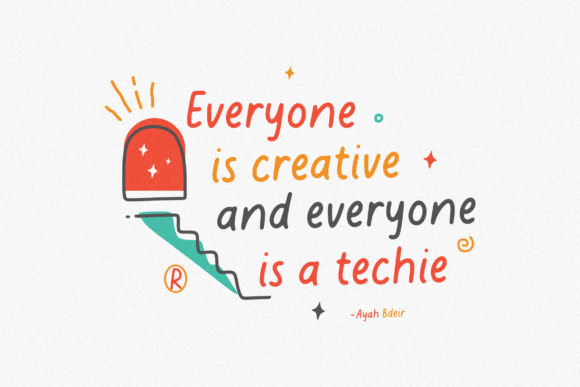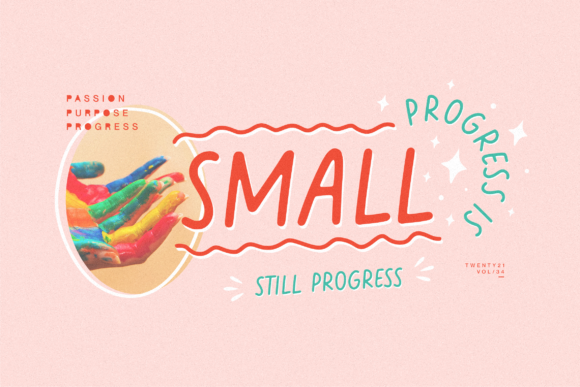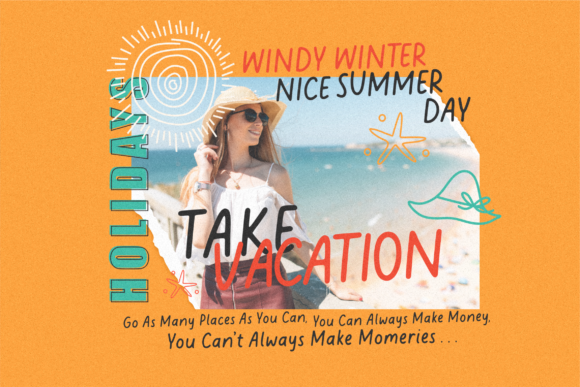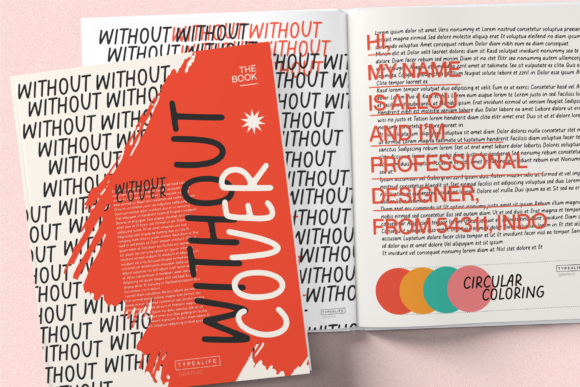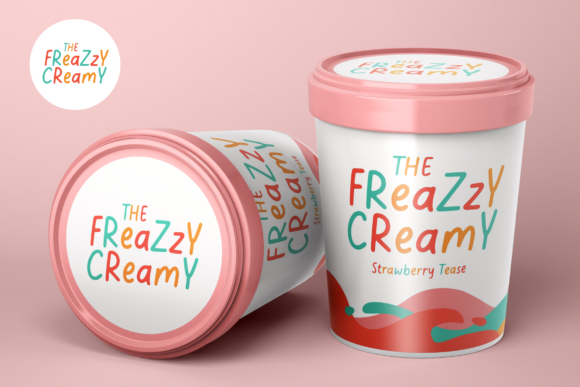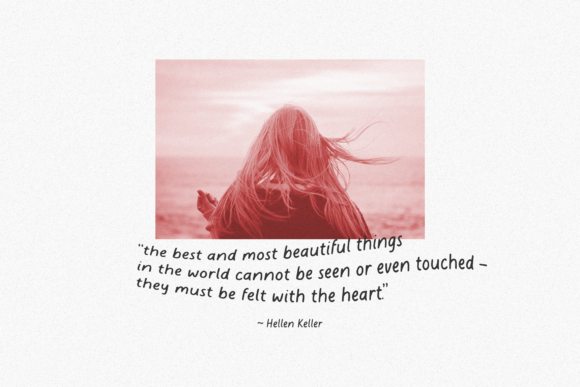
Introduction to Moonlily Font
Moonlily is a cute and colorful display font.
It embodies playfulness and authenticity and is the perfect choice for any children activity or school project .